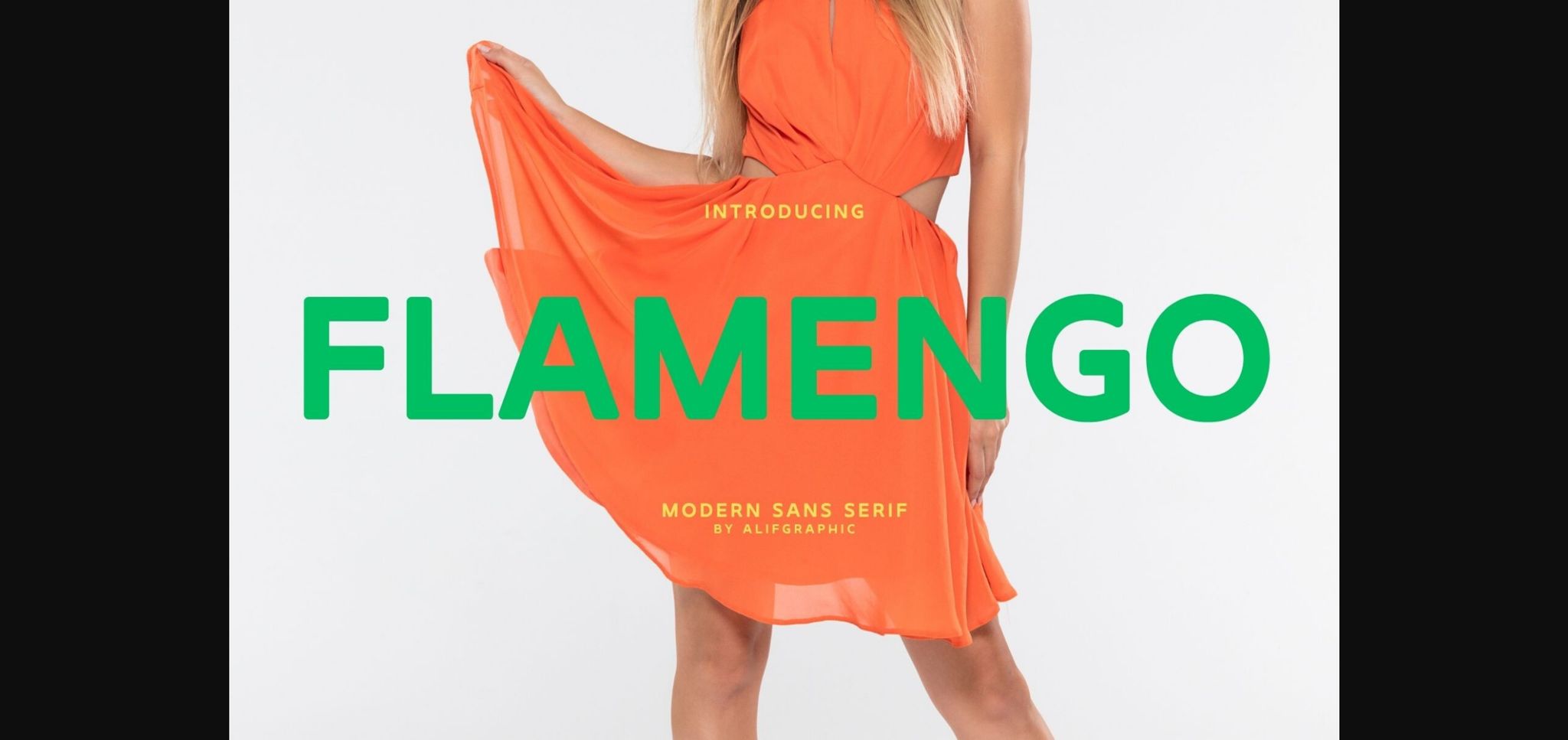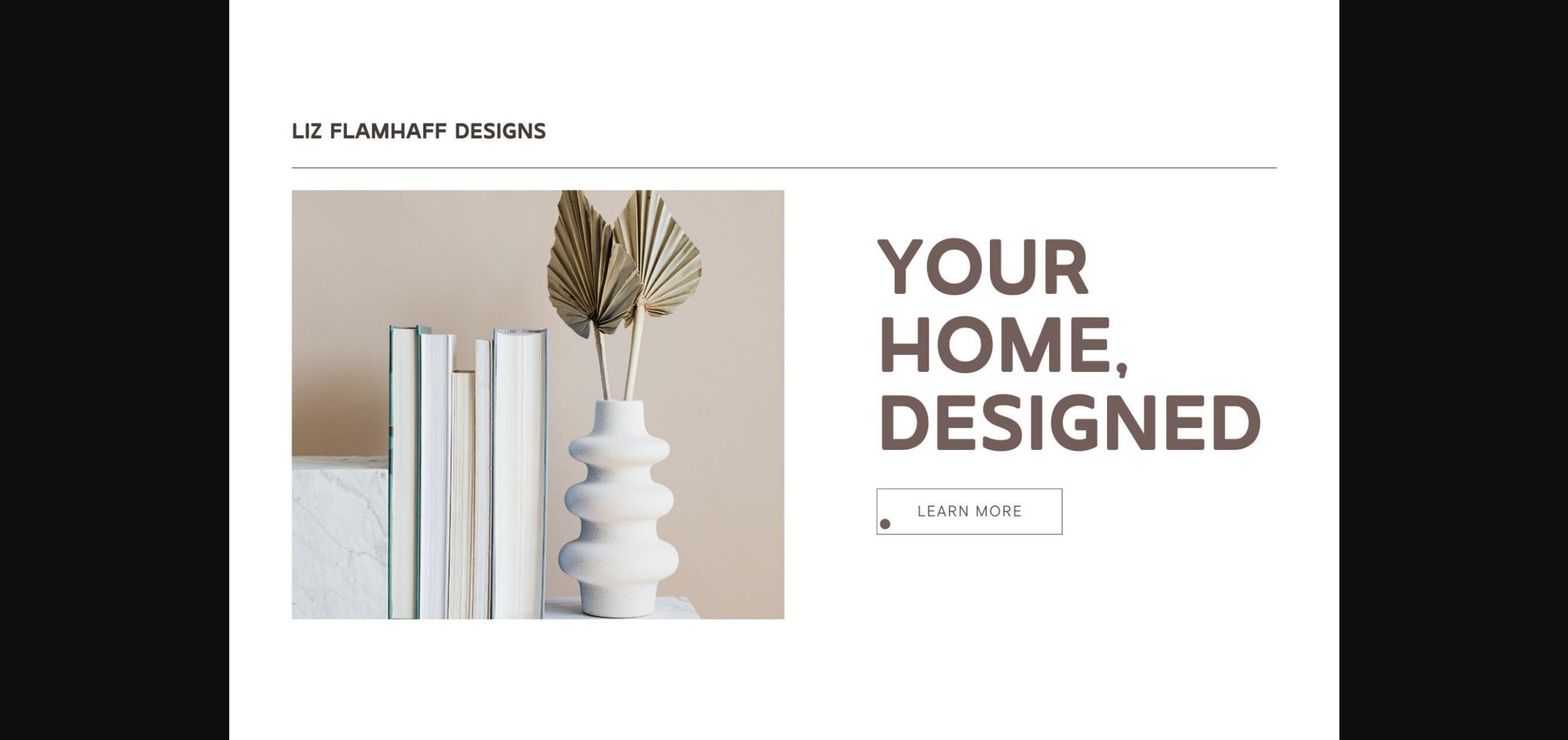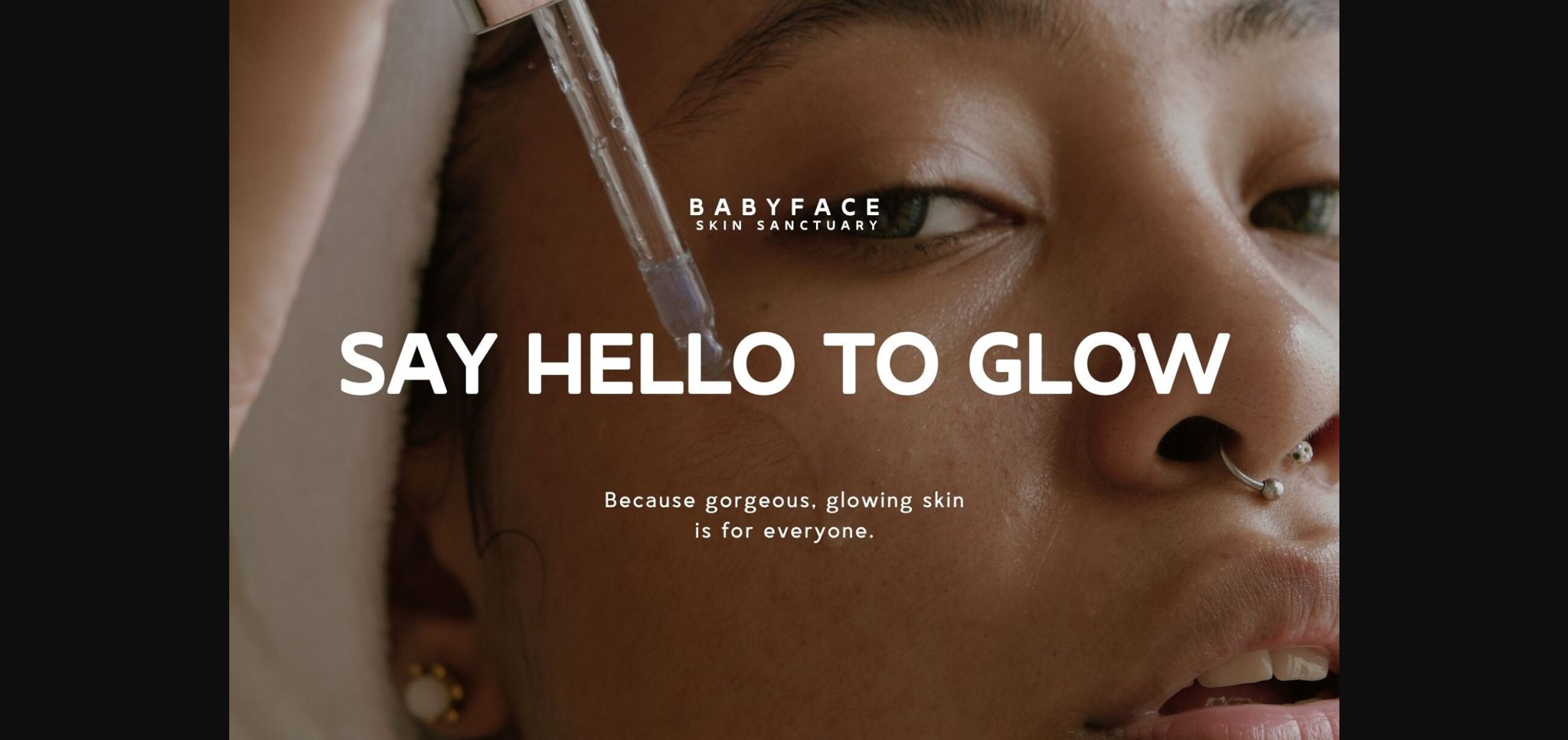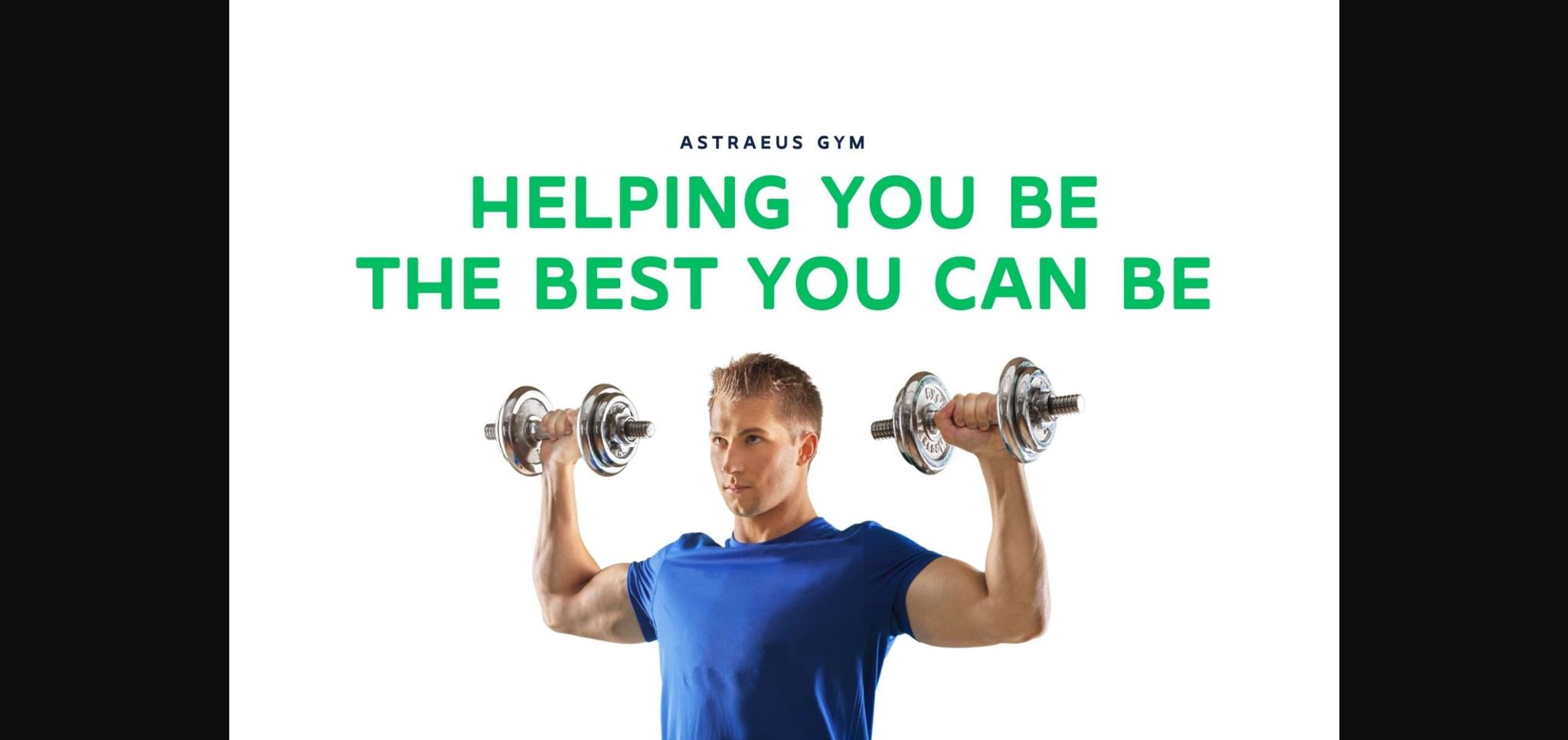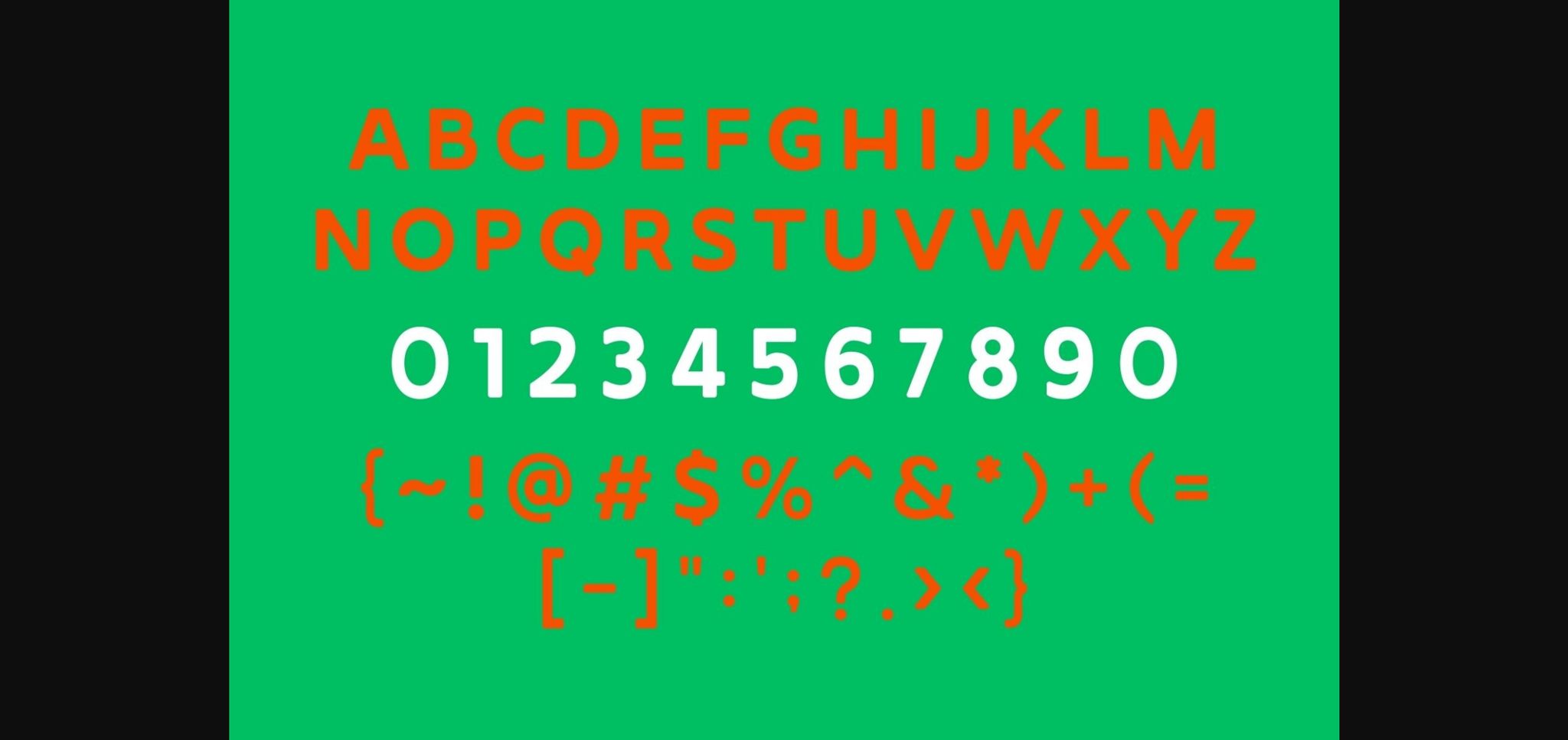
Flamengo Font
About Flamengo Font
Introducing “Flamengo,” a modern and beautiful sans-serif font that effortlessly blends sophistication with contemporary design. With clean lines and a timeless appeal, Flamengo is perfect for projects that demand a sleek and elegant aesthetic. Whether you’re working on branding, editorial design, or any creative endeavor, Flamengo adds a touch of refined simplicity to your typography. Embrace the beauty of modern design with this versatile and chic sans-serif font.